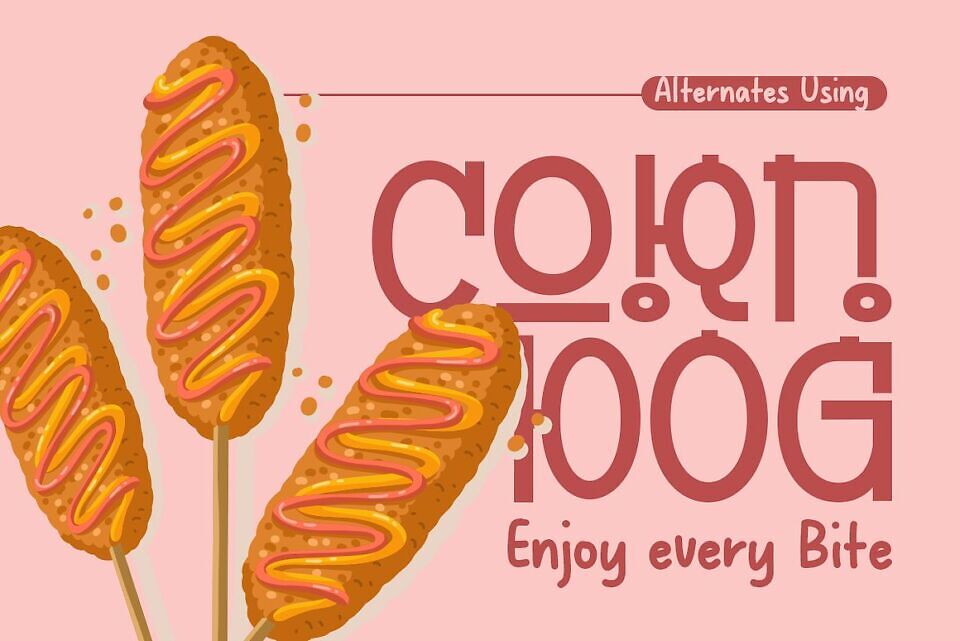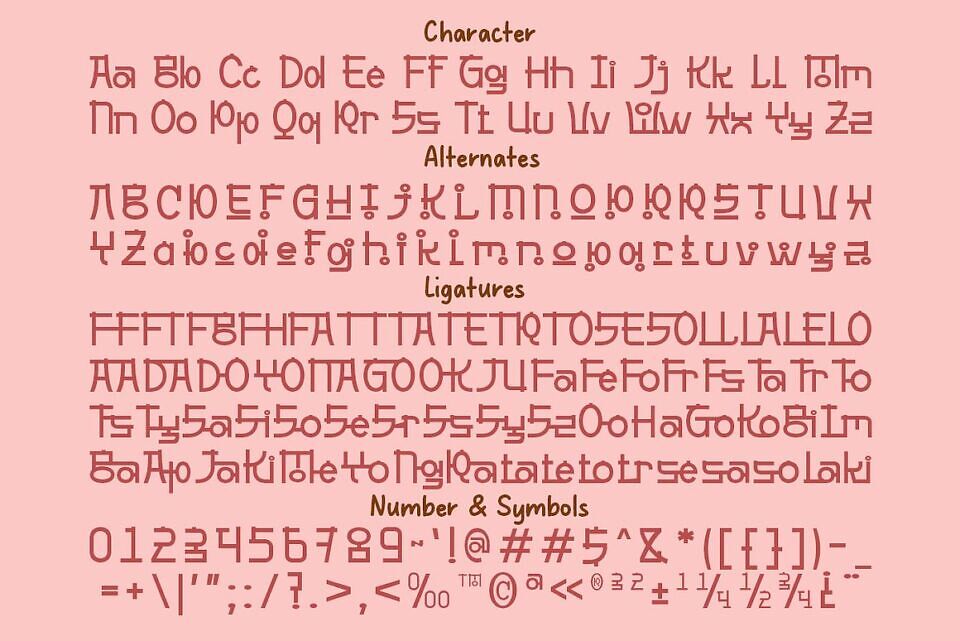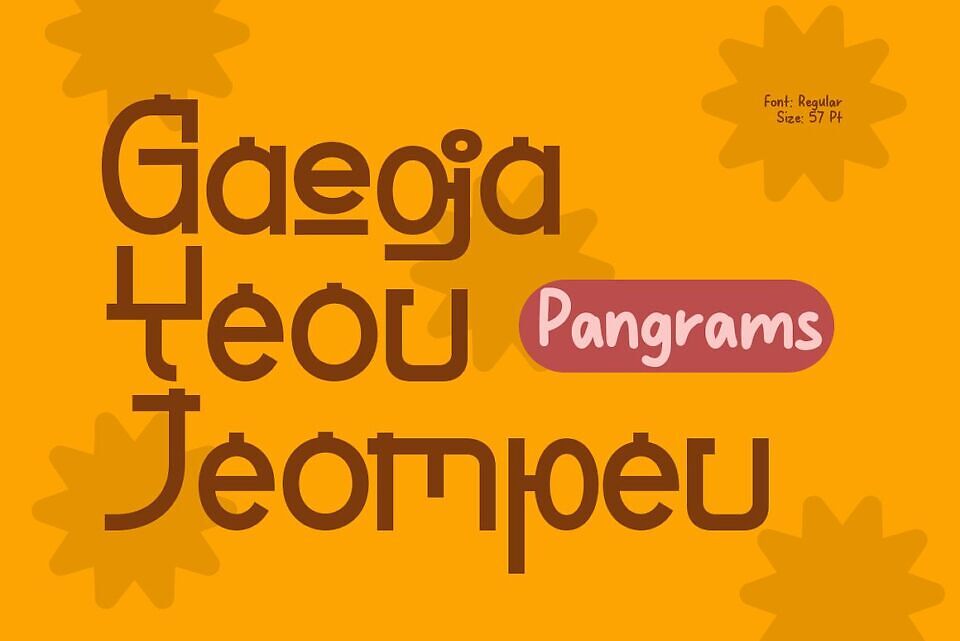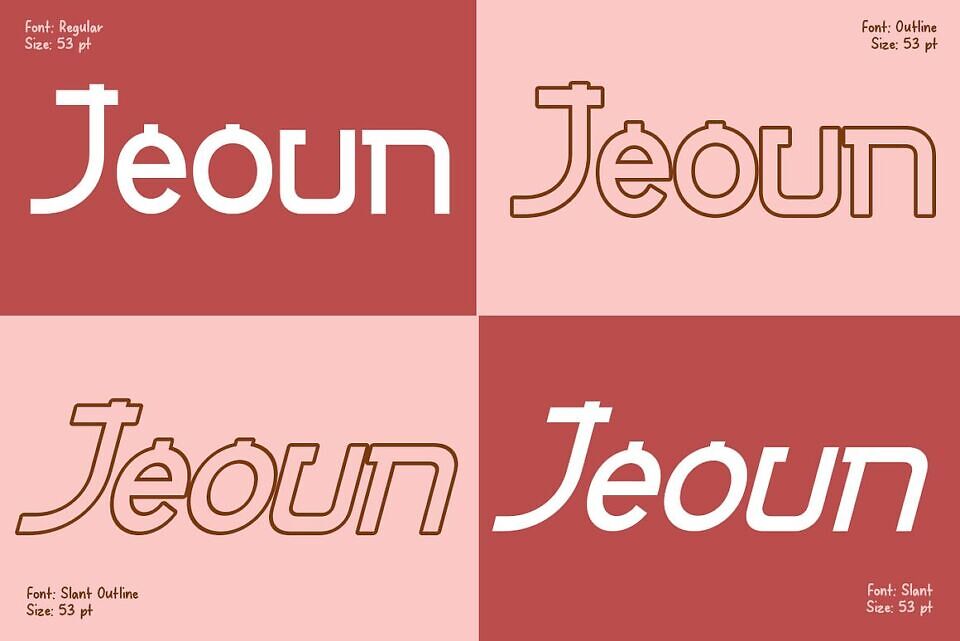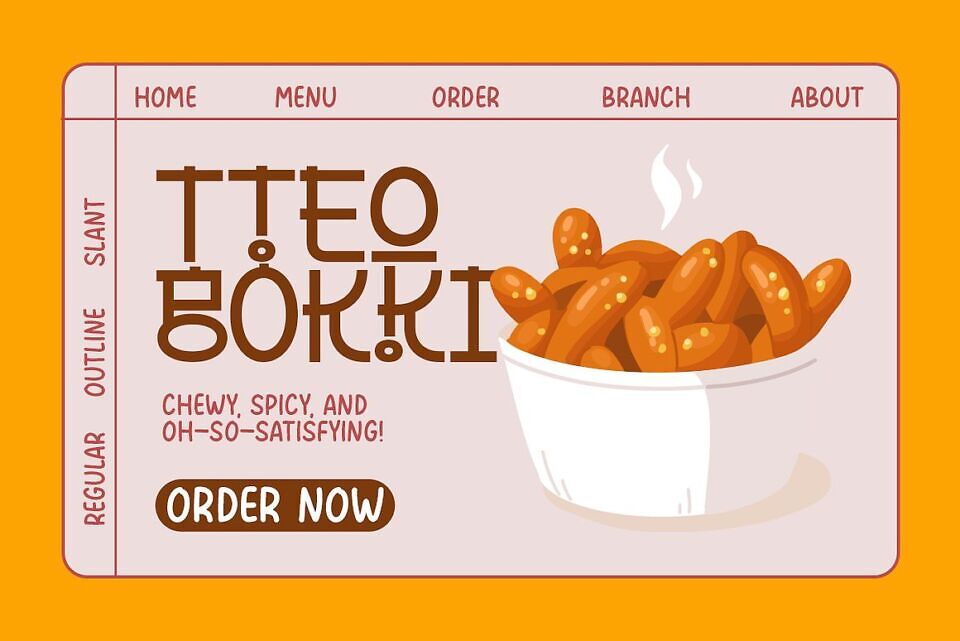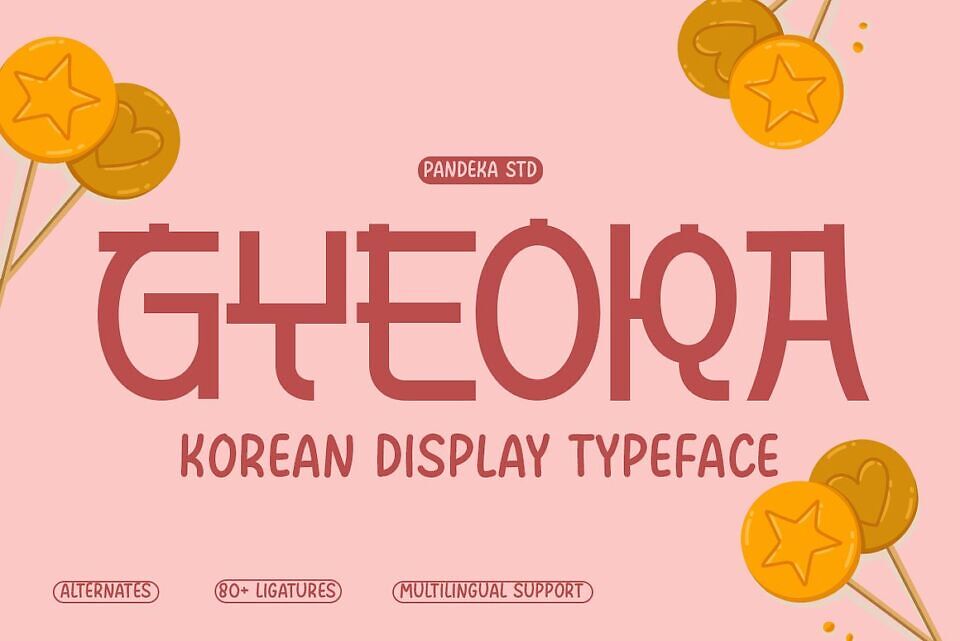
Gyeora – A versatile Korean display typeface that combines bold typography with traditional aesthetics and modern design.
With 4 unique styles (Outline, Outline Slant, Regular, Slant), Gyeora is perfect for cultural projects, branding, logos, posters, and designs that demand a unique and stylish touch.